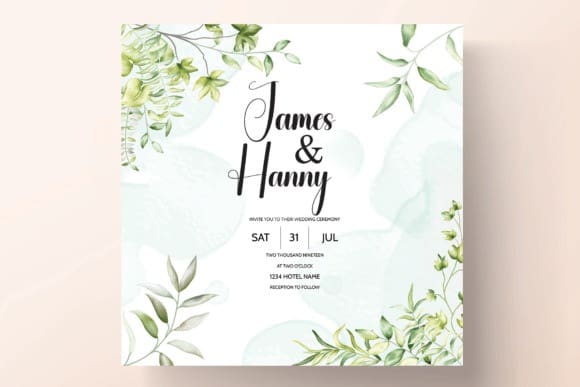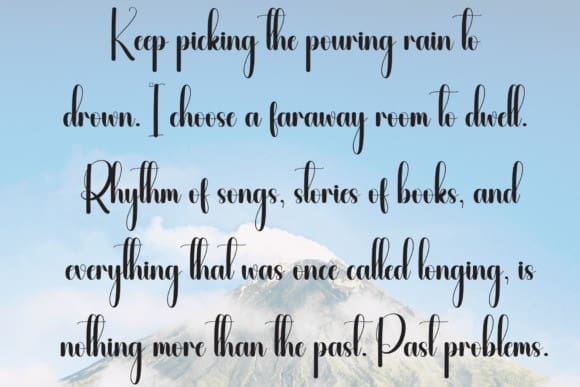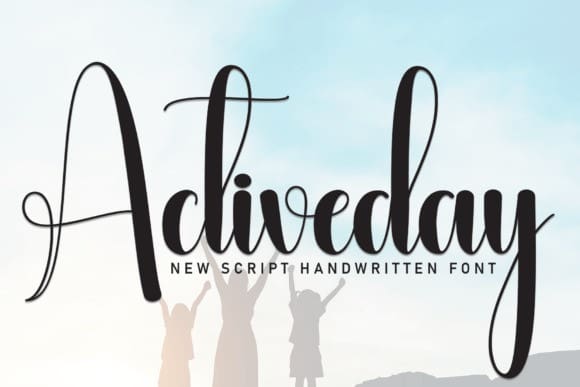
Activeday Script Font
Activeday Script Font, is an energetic script and handwritten typeface that radiates a sense of liveliness and positivity. With its dynamic letterforms and playful strokes, it adds a burst of energy to any design. Perfect for active lifestyle branding, fitness-related projects, and designs that aim to inspire and motivate.